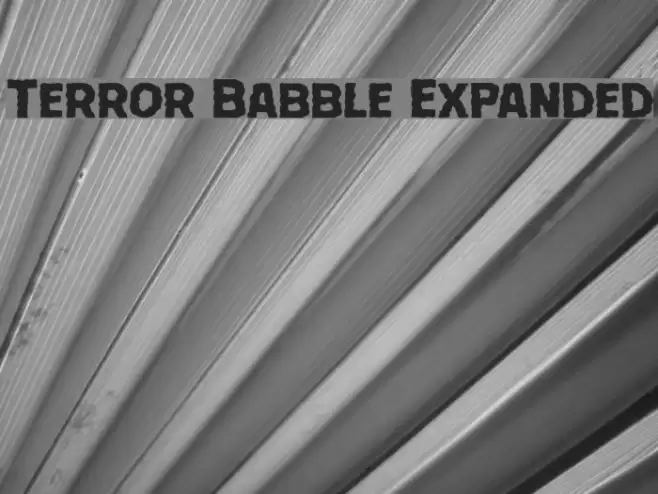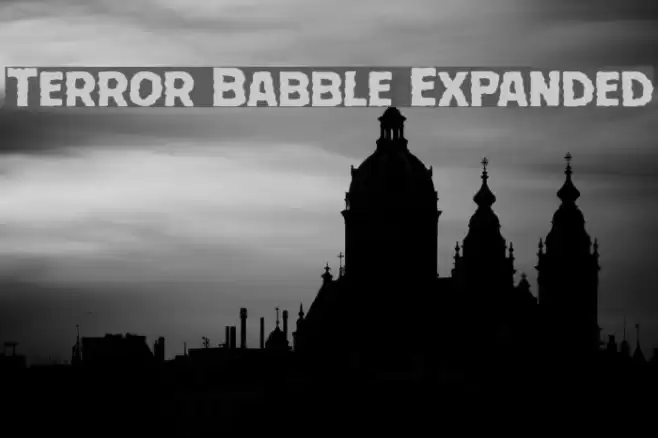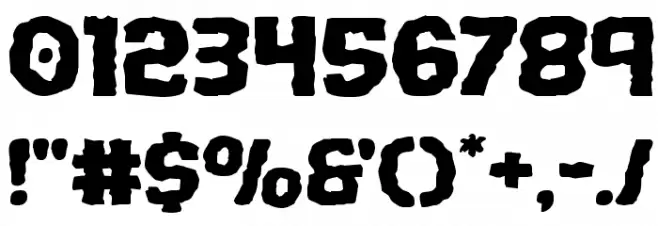
Terror Babble Expanded Font
Terror Babble Expanded Description
This font features a bold and rugged design, characterized by its uneven, jagged edges that give it a distressed and chaotic appearance. The letters are thick and substantial, conveying a sense of urgency and intensity. The style is reminiscent of horror or thriller themes, making it ideal for projects that require a dramatic and impactful visual presence. The uppercase and lowercase letters maintain a consistent weight, while the numbers and special characters follow the same bold and irregular pattern. This font's unique style makes it stand out, ensuring that any text set in it will capture attention.
A bold, rugged font with jagged edges, perfect for dramatic themes from Uncategorized fonts.
- Proposed Projects: Ideal for horror movie posters, Halloween event flyers, video game titles, and any project requiring a dramatic and intense visual impact.
- Use Case: Headlines, Posters, Logos